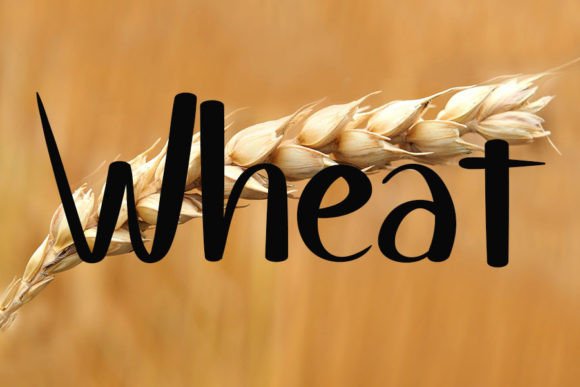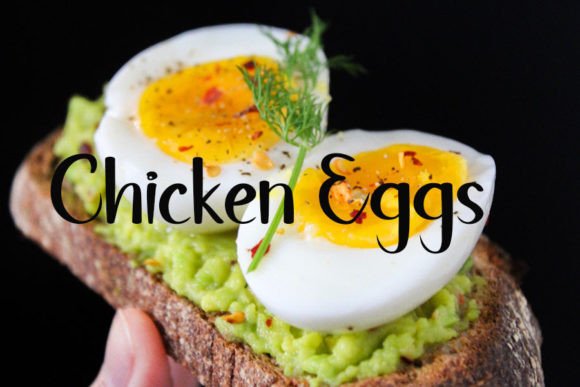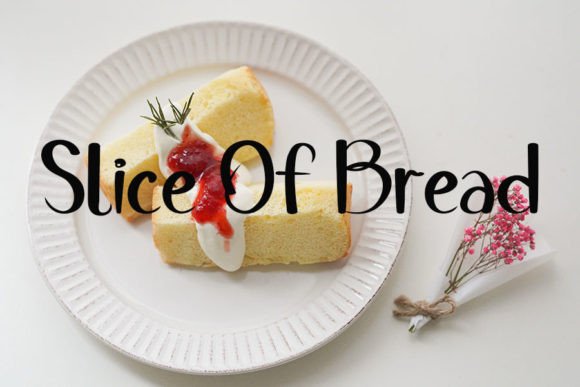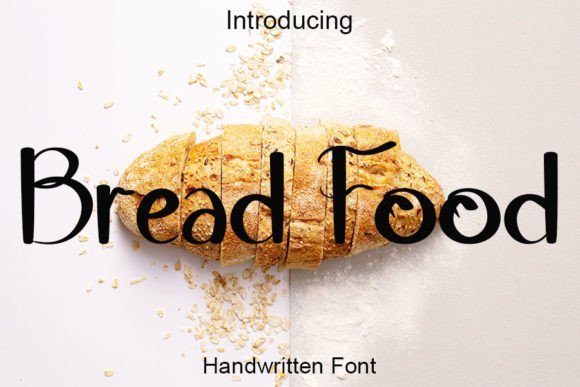
Introduction to Bread Food Font
Bread Food is a neat and beautiful handwritten font described by a cool, natural touch and is perfect for your favorite projects.
Fall in love with its incredibly distinct and timeless style, and use it to create spectacular designs .
Bread Food Font offers exceptional quality and versatility, making it a valuable addition to your design toolkit. Whether you’re creating for personal projects or commercial use, Bread Food Font delivers professional results.